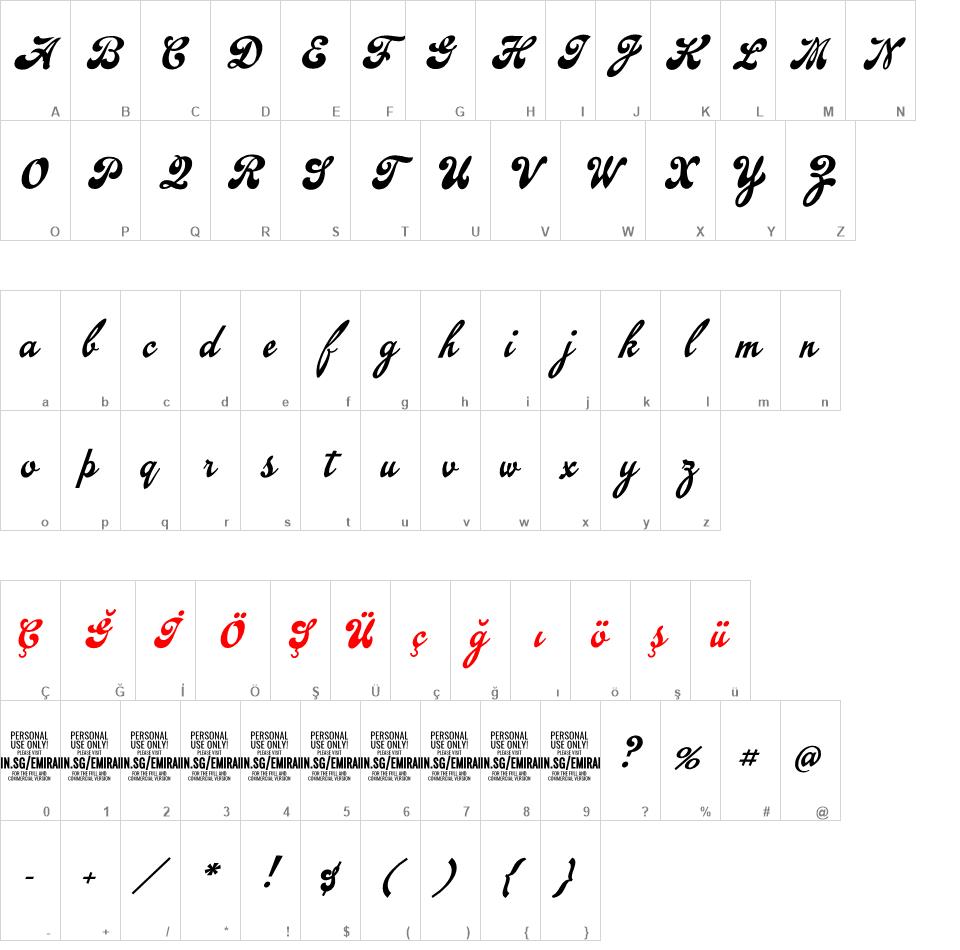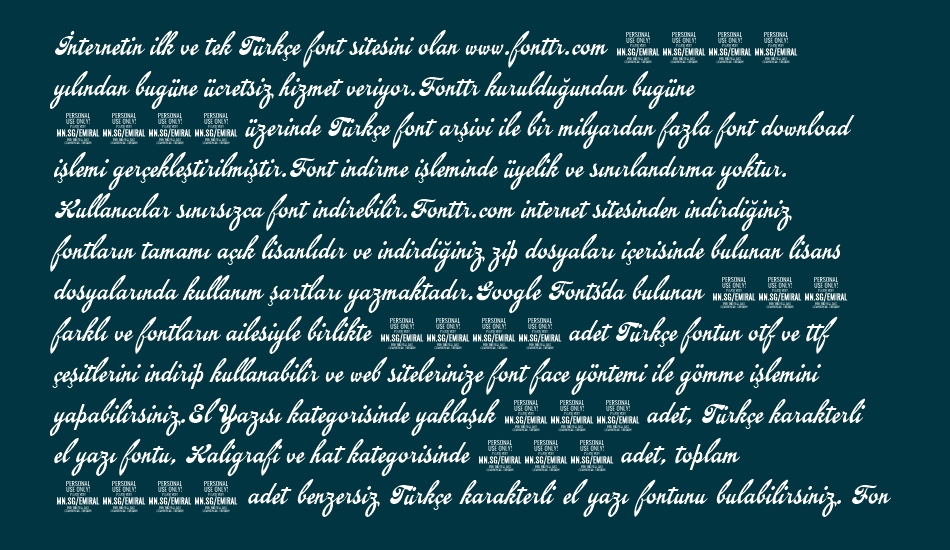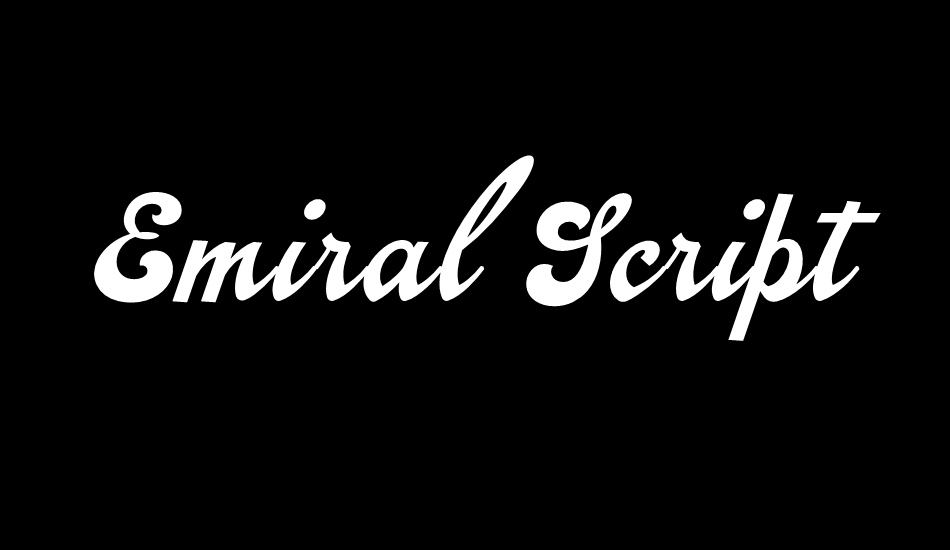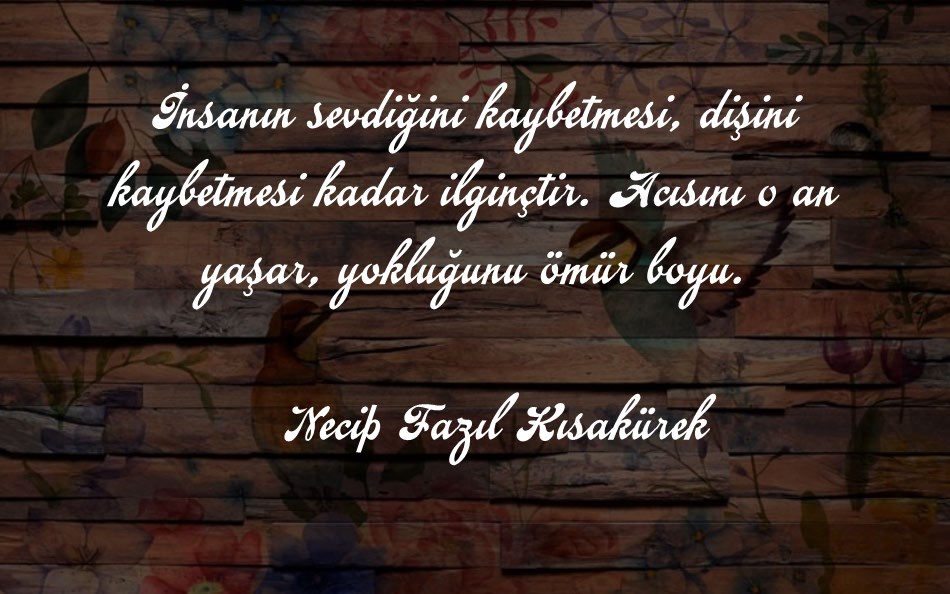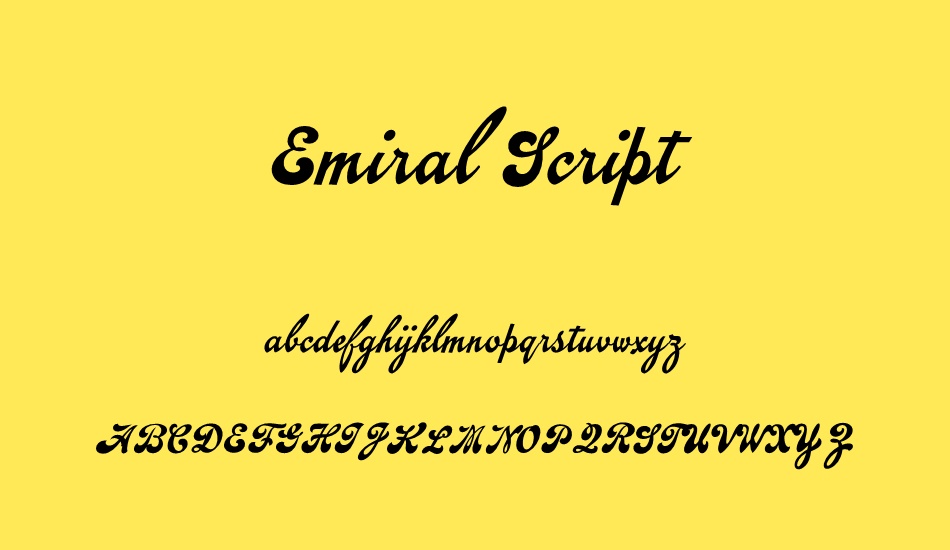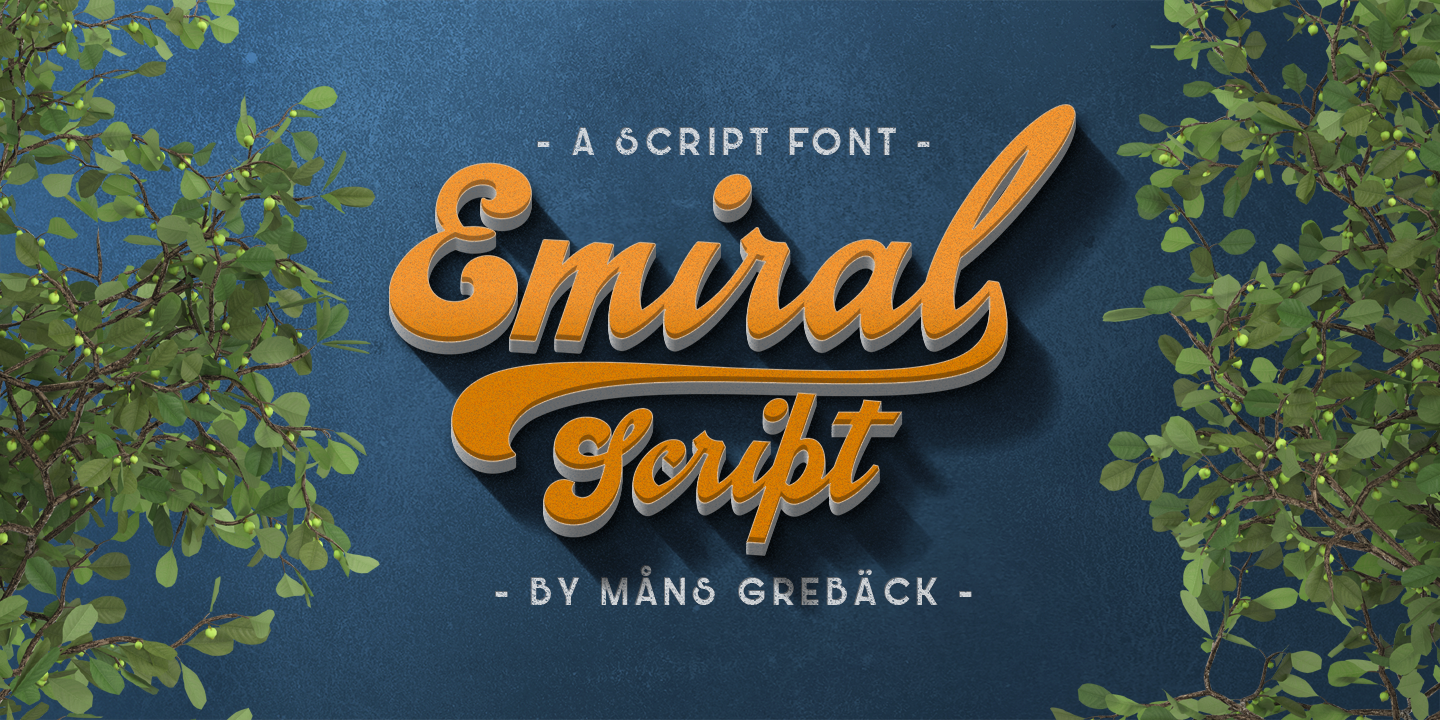
Emiral Script font
Emiral Script is a vintage typeface in Regular and Bold.
The font is created by M?ns Greb?ck and works great for logotypes and slogans.
It has contextual alternates and ligatures, and supports hundreds of languages.
Write an underscore after any word to make a swash.
Example: Emiral_
If your software supports ligatures, you can write multiple underscores for a longer line.
Example: Oldtimer__